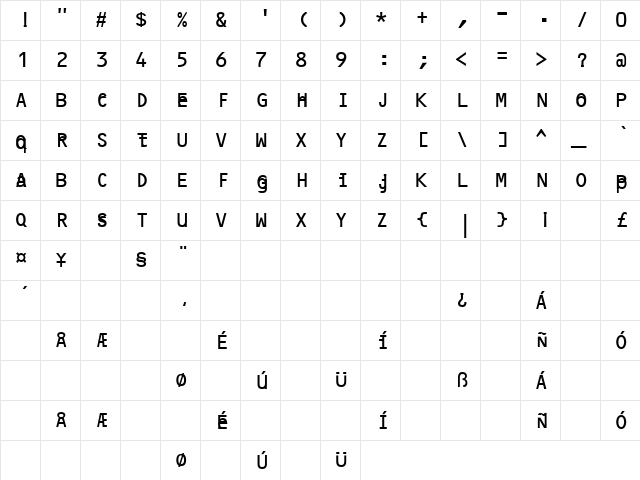
anaiak Regular
Design Context for anaiak Typeface
anaiak takes a measured approach to typography — its balanced proportions and neutral character make it a reliable workhorse for both digital and print work.